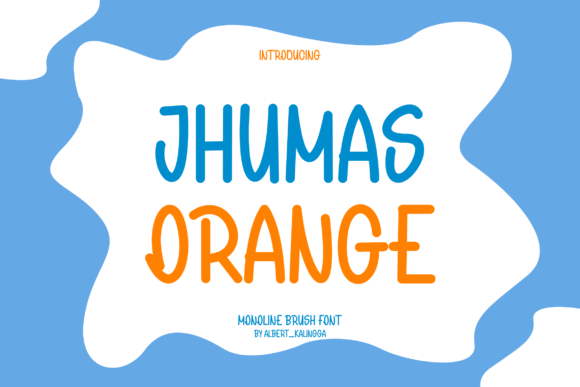
Step into a world of effervescent charm with Jhumas Orange, the handwritten font that radiates vibrancy and playfulness. Its energetic strokes, bursting with zest, dance across your designs with an infectious joy. This font is a burst of creativity, unleashing a cheerful spirit that captivates the eye.
Jhumas Orange is not just a font; it's a journey into a whimsical world where every letter is a work of art. Its irregular shapes add a delightful touch, inviting you to explore the beauty of the unexpected. Perfect for invitations that sparkle with personality, greeting cards that warm hearts, and craft projects that ignite imagination, Jhumas Orange transforms the ordinary into the extraordinary.
With its carefree vibe, Jhumas Orange is a breath of fresh air, inviting you to embrace your creative side. Its vibrant energy leaps off the screen, commanding attention and leaving a lasting impression. Every text adorned with Jhumas Orange stands out with its radiant charm, captivating audiences with its playful spirit.
Unleash your creativity and embark on a delightful adventure with Jhumas Orange. Its lively strokes will infuse your designs with joy, while its irregular shapes will spark your imagination. Experience the magic of this handwritten font and let your designs shine with an unforgettable vibrancy. Embrace the whimsical charm of Jhumas Orange and watch your creations come alive with boundless creativity.